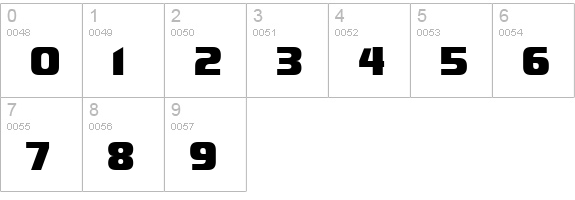
Infinite Justice Straight Font Details
Introducing the Infinite Justice Straight font, a bold and dynamic typeface that exudes power and authority with its clean lines and sharp edges. Designed to make a statement, this font commands attention and leaves a lasting impression. The Infinite Justice Straight font is perfect for projects that require strength and confidence. Whether you're designing a logo for a corporate client, creating eye-catching headlines, or crafting impactful social media graphics, this font will elevate your work to new heights. With its versatility, the Infinite Justice Straight font can be used in a variety of design applications. Its sleek and modern appearance lends itself well to both digital and print media, making it an excellent choice for websites, advertisements, posters, brochures, and more. But what sets the Infinite Justice Straight font apart is that it is not only visually striking, but also freely available to download. Yes, you heard that right - this remarkable font can be yours without spending a dime. Simply head over to FontsMarket.com, where you can easily access and download this font for absolutely free. So why wait? Embrace the power of the Infinite Justice Straight font and let your designs speak volumes. Download it today and unlock a world of possibilities for your creative endeavors.